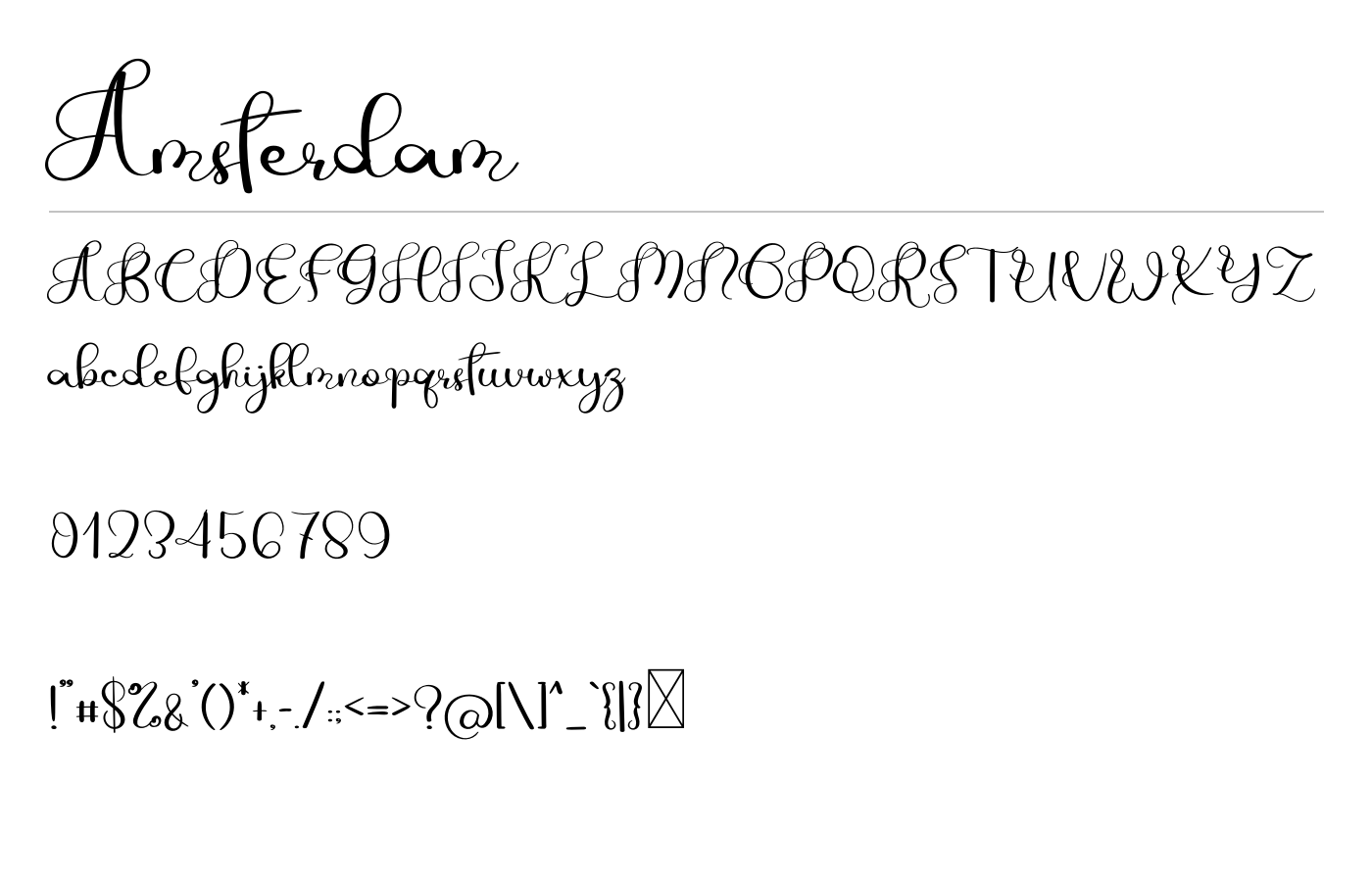
Amsterdam is an elegant script font characterized by its delicate, flowing strokes and ornate swashes that add a graceful, hand-crafted feel. Its light weight and high contrast give it a refined, sophisticated appearance, making it ideal for luxury branding, invitations, and decorative headlines where a stylish and artistic touch is desired. This font’s intricate letterforms and airy spacing convey charm and creativity, perfect for projects that seek a personal, elegant impression.
Amsterdam Font
About Amsterdam Font